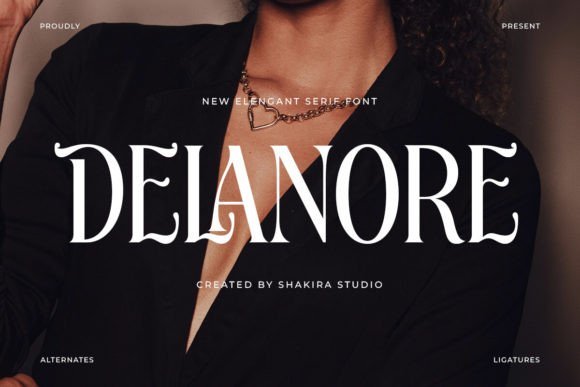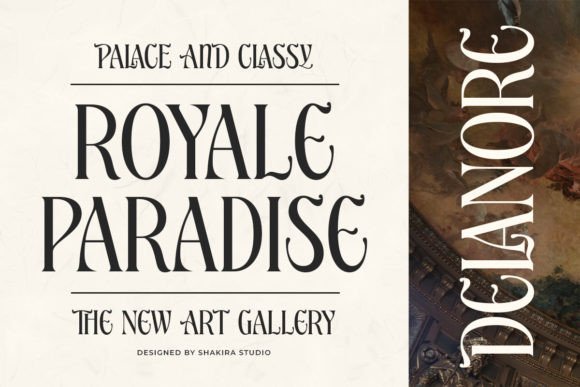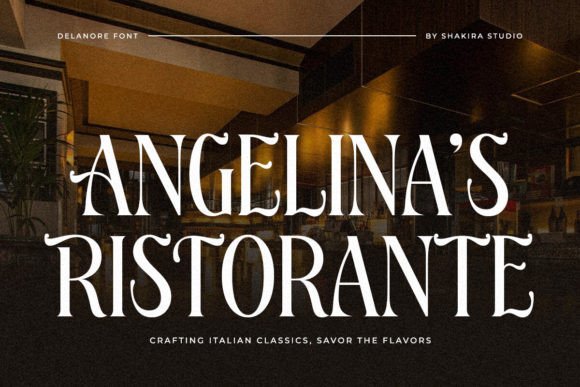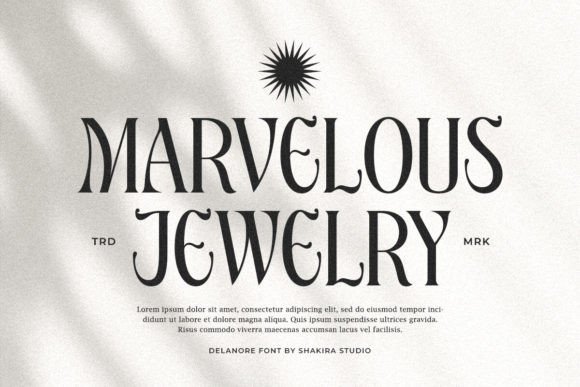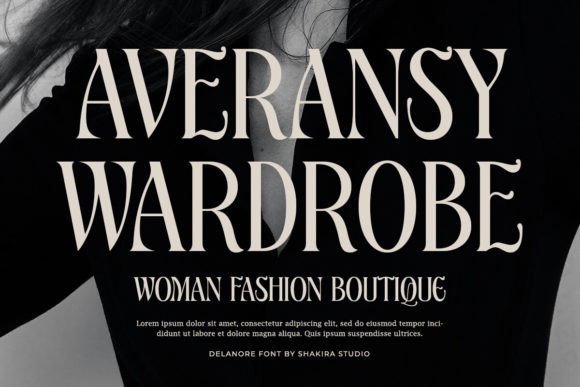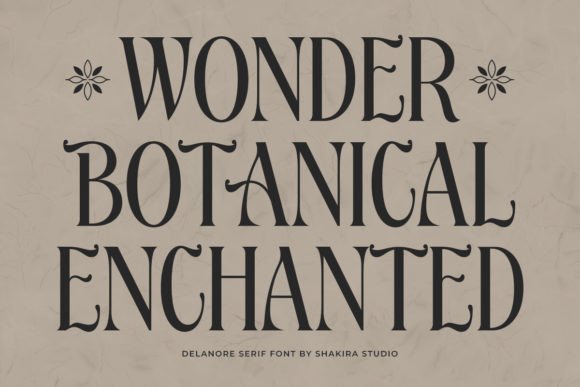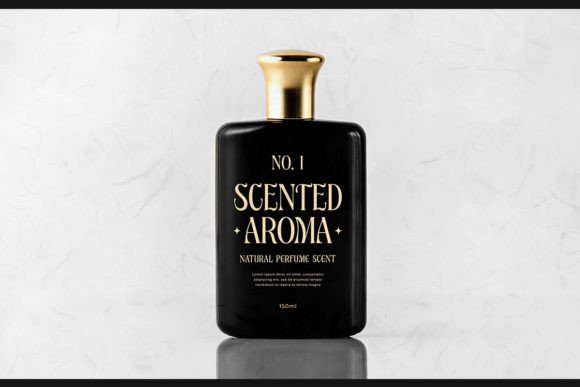
Discover the Elegance of Delanore Font
There’s something magical about holding a beautifully crafted book in your hands, feeling the weight of the pages, and admiring the elegant typography. For designers, this moment is a constant pursuit – to create work that not only communicates a message but also evokes emotions. And that’s where Delanore Font comes in – a sophisticated serif font designed to elevate your high-end projects.
Delanore Font is the perfect companion for luxury branding, editorial design, and any project that demands refinement and class. With both regular and italic versions, this typeface offers unparalleled versatility. But what truly sets Delanore apart is its attention to detail – stylish alternates and ligatures that add a touch of sophistication to your designs.
Whether you’re working on a premium brochure or a high-end website, Delanore Font is the perfect choice to add a touch of elegance and refinement to your work.
Delanore Font Key Features
- Font Family: Delanore
- Unique Characteristics: Delanore features a modern, elegant design with clean lines and a subtle flair, making it suitable for a wide range of applications, from body text to headlines.
Delanore Font Review
Overall, I think Delanore Font is a great choice for designers who want to add a touch of elegance to their projects. ✨ The font’s clean lines and modern aesthetic make it perfect for creating professional-looking documents, websites, and presentations.
Here are some of the things that I like about Delanore Font:
- ✨ Wide range of languages supported, making it a great choice for global projects.
- ✨ Available in various weights and styles, allowing for a high degree of customization.
- ✨ Works well in both print and digital formats.
- ⚠️ The font may not be as versatile as some other options, particularly in terms of its ability to handle complex typography.
- ⚠️ Some users have reported issues with font rendering on certain devices or browsers.
Despite these limitations, I think Delanore Font is a solid choice for designers who want a clean, modern look without breaking the bank. With a little creativity and experimentation, you can get some great results from this font.
Tips for Getting the Most Out of Delanore Font
For the best results, pair Delanore font with a bold or italic font to create visual interest. Experiment with different font sizes and colors to create a unique look. Delanore font works well for headings, titles, and body text.
Delanore font is ideal for creative projects, such as:
– Infographics
– Brochures
– Branding materials
– Digital presentations